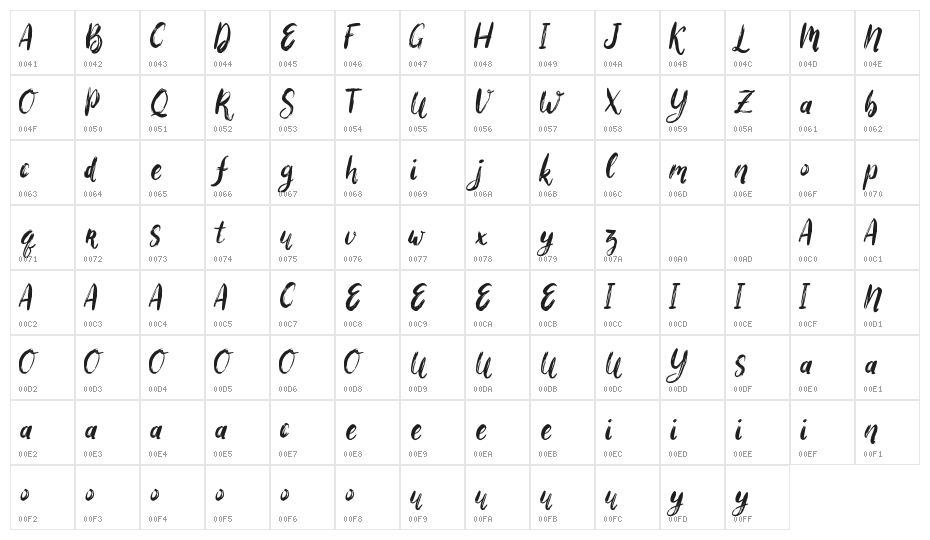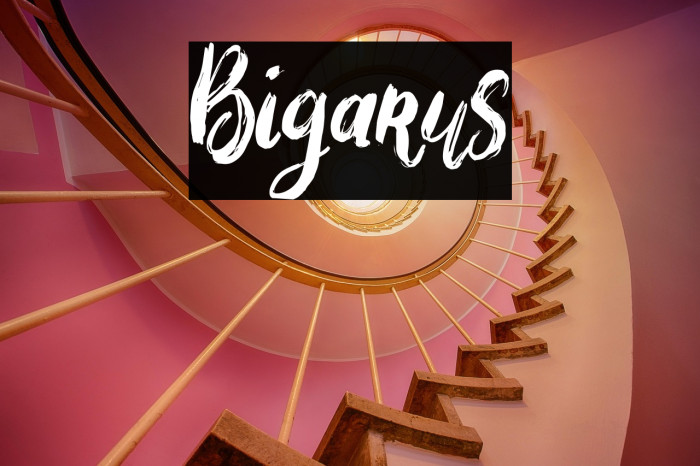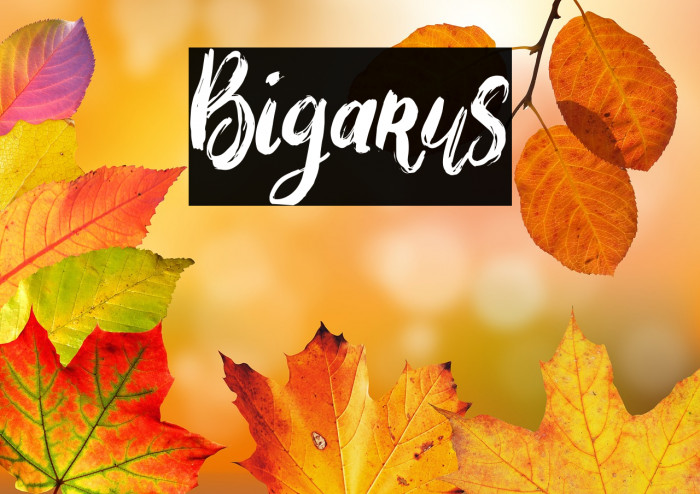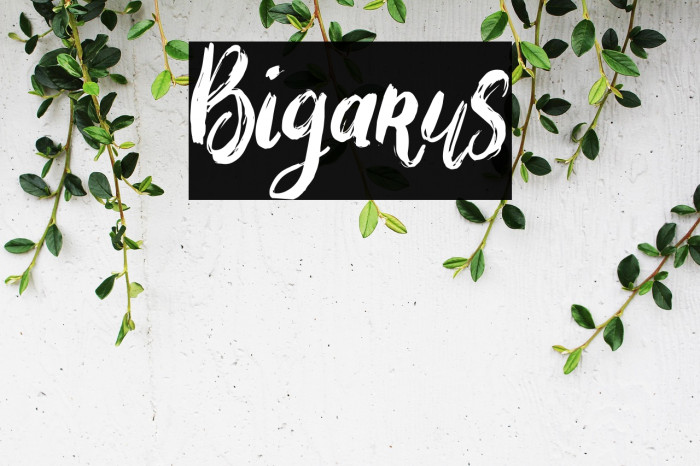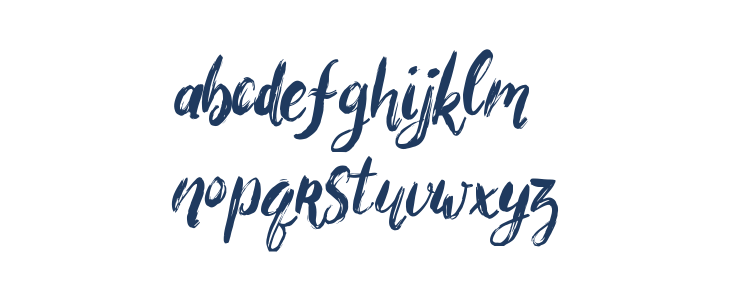
Bigarus Font
Bigarus Description
This font features a bold and expressive brush script style, characterized by its dynamic and energetic strokes. The letters are crafted with a hand-painted appearance, giving it a lively and artistic feel. The uppercase and lowercase letters exhibit a consistent flow, with some characters having unique flourishes that add to the overall aesthetic. The font maintains a sense of movement and spontaneity, making it ideal for creative and informal designs. Its brush-like texture and varying stroke widths contribute to its distinctive and eye-catching look.
| Use Case | Logos, Headlines, Posters |
| Proposed Projects | Ideal for creative projects such as posters, invitations, branding, and social media graphics where a lively and artistic touch is desired. |